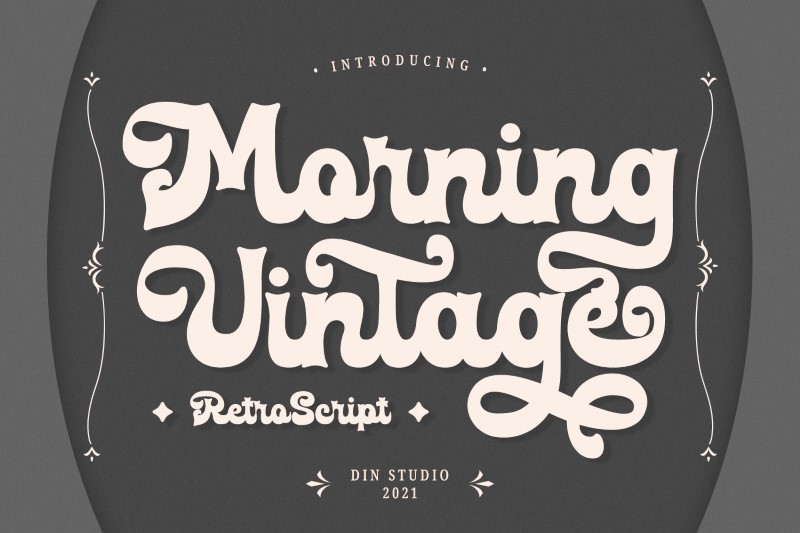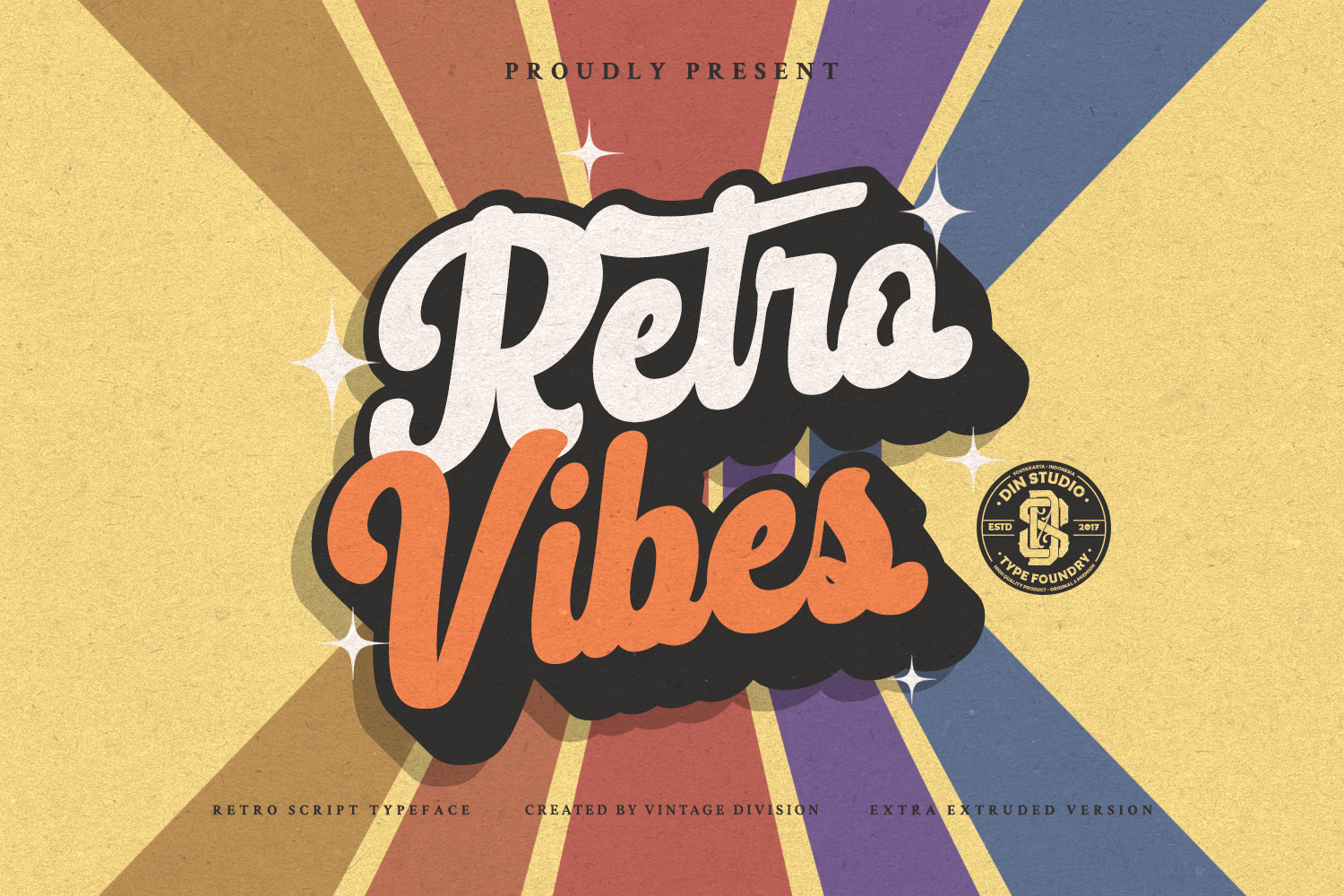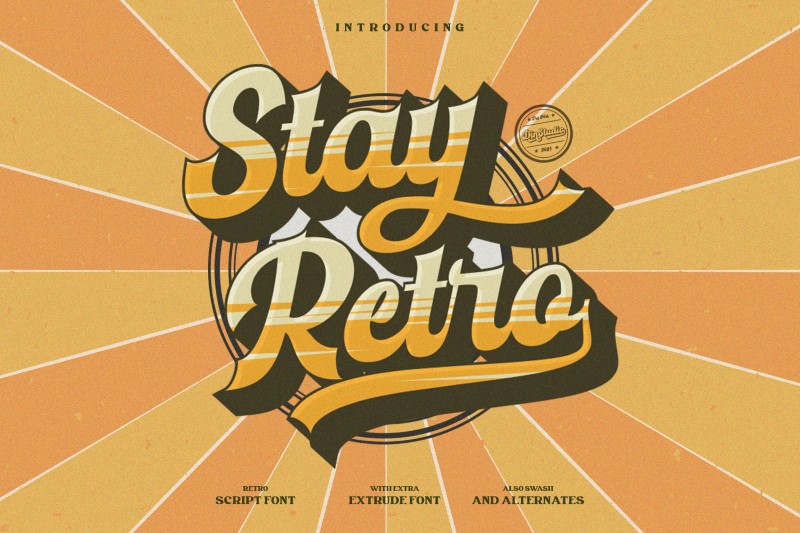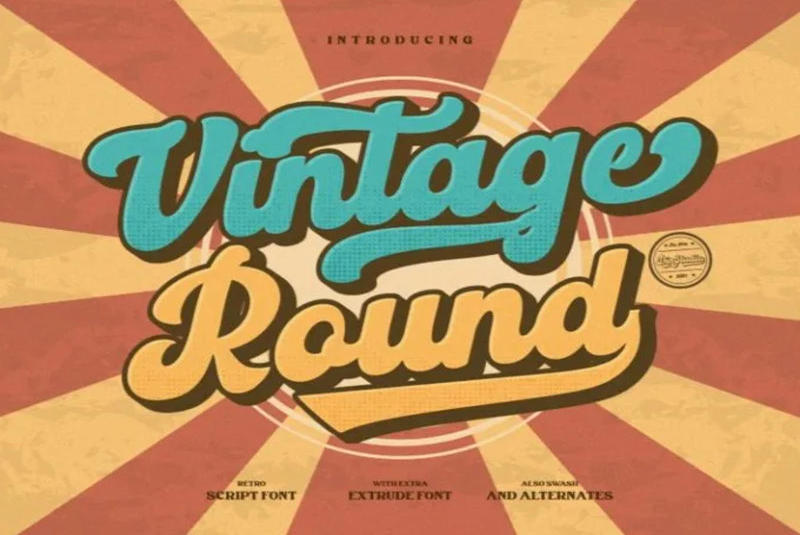
Are you ready to create something that exudes personality, elegance, and enduring style? Let’s evoke a powerful sense of nostalgia with the best vintage retro font collection available in the market.
In a time when minimalist, modern design rules the highest, the allure of classic style continues to captivate hearts. Opting for a vintage retro font remains a compelling choice, as it infuses a design with distinctiveness, authenticity, and character. Featuring bold letters, decorative ornaments, and a stylish handwriting flair, these fonts are perfect for elevating your project designs.
A vintage retro font shows a great look and builds a unique and memorable design identity. Additionally, vintage retro fonts have a nostalgic and adaptable style, ideal for many projects with an elegant and playful look. It is no wonder that these fonts always become the favorite in this creative era.
So, if you are looking for easily adaptable vintage fonts, you are definitely in the right place! In this article, we introduce the 10 best vintage retro font collections to enhance your design. From classic to playful looks, we’ve got everything. Let’s get to know them!
A vintage retro font is a type of font that adopts a design element from the bygone era, especially from the 19th to the mid-20th century. This font is well-known for its bold letters, artistic ornaments, and distinctive curves that give a classic and nostalgic feel to a design.
Furthermore, with details like their curvy lines and shadow and texture effects, these fonts highlight certain distinctive visual characters that set them apart from modern minimalist fonts.
Vintage retro fonts began to gain popularity in the 19th century, alongside the development of print media and advertising during the industrial revolution. The bold and decorative font styles of that time were heavily influenced by the organic and flowing aesthetics of Art Nouveau, as well as the later Art Deco with its geometric and elegant forms. Posters, product packaging, and billboards frequently used these fonts to draw attention.
Over time, this trend waned with the emergence of minimalist modern design in the 20th century. However, since the early 2010s, interest in nostalgia and retro aesthetics has revived the popularity of this classic font. Now, in the digital era, this font is increasingly favored as a way to add an authentic and timeless touch to designs.
Vintage retro fonts are very suitable for designs that want to appear classic but have an authentic and characterful atmosphere. This font provides a strong touch of nostalgia, allowing the design to indirectly tell a story. Additionally, the decorative and distinctive letterforms help differentiate your design from the modern style, which tends to be uniform and minimalist.
This uniqueness is very effective in strengthening visual identity, attracting audience attention, and creating a quite profound impression. Therefore, vintage retro fonts have become the primary choice for designers and brands that want to stand out and appear classic.
In the world of design, the right choice of font can enhance the character and atmosphere of a work. A vintage retro font offers a classic charm and strong nostalgic feel, ideal for many creative projects of yours. The following are 10 must-have vintage retro fonts for you.
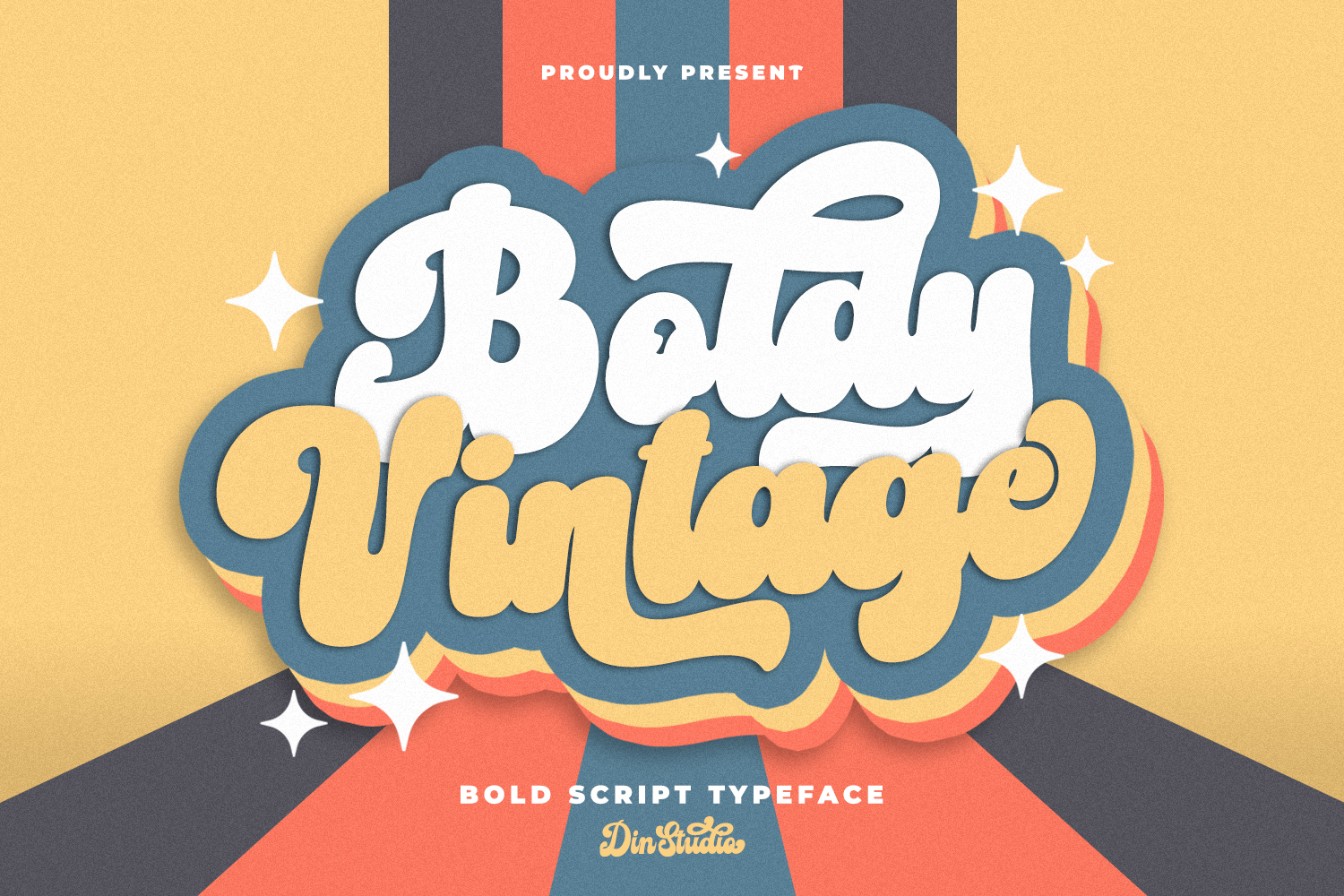
Firstly, we have Boldy Vintage. Boldy Vintage is one of the best vintage retro fonts for those who want to showcase a design that is strong, bold, and full of character. Every hand stroke on its letters makes the design look bright and lively, adding a modern yet enjoyable touch.
The main features of Boldy Vintage include ligatures, which are special letter combinations that make the writing more attractive and natural. Additionally, this font offers a variety of cool and diverse styles to provide flexibility in your designs.
This font is perfect for creating quotes, logos, menus, and social media content that aim to stand out and be full of energy. The multilingual support it offers also makes it easy for you to reach a global audience with designs that remain consistent and appealing.
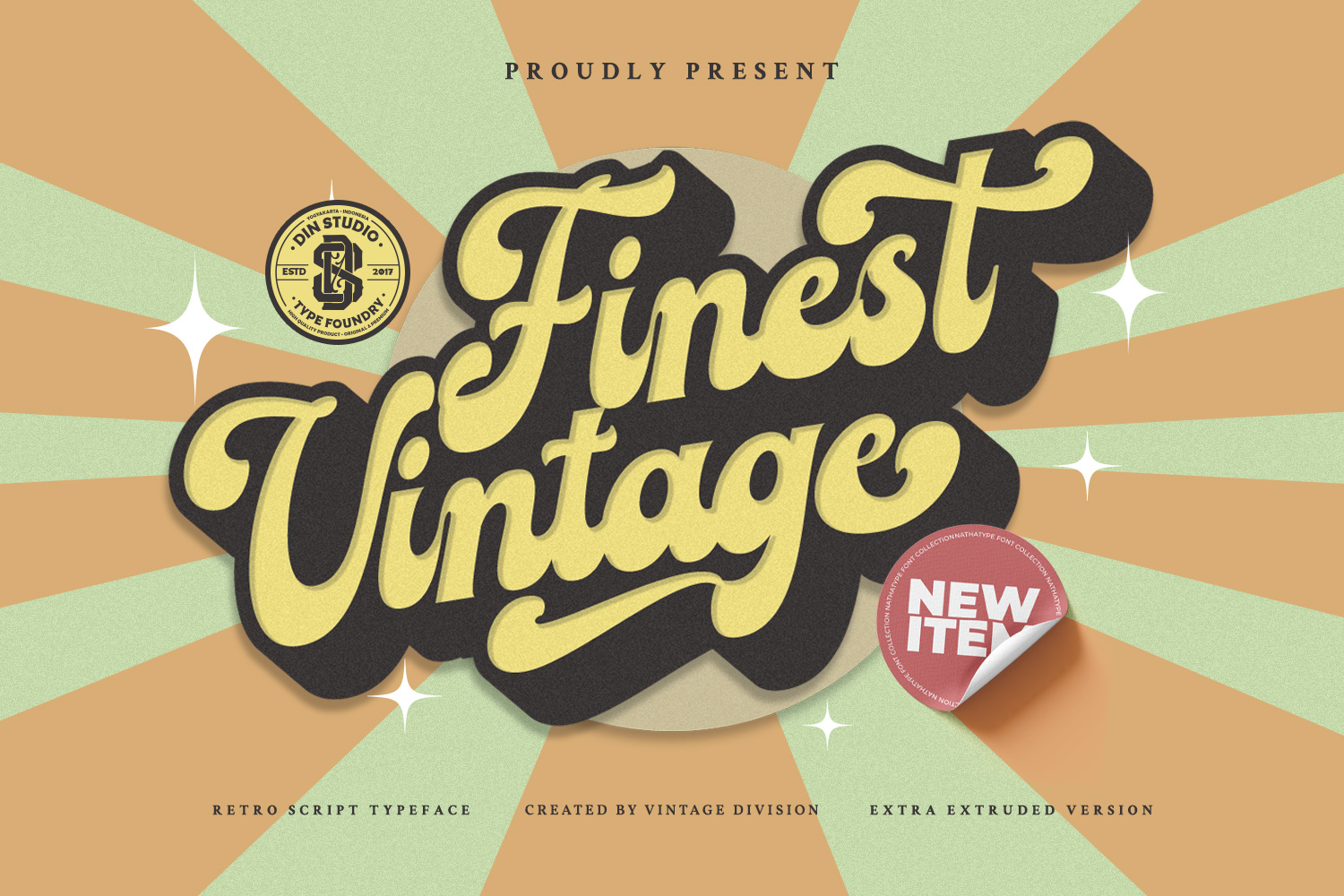
Next, you need to know about Finest Vintage. It is a vintage retro font combining classic elegance with smooth and precisely detailed typography. Finest Vintage is characterized by its distinctive bubbly style, sharp lines, and bold letter strokes. The angular letter design makes it easy to read and attention-grabbing. Equipped with multilingual glyphs, Finest Vintage also offers an extrusion version that adds a unique touch.
The main feature of Finest Vintage includes ligatures, alternate sets, and swashes, enhancing the look of your design project. As a result, this font is ideal for creating quotations, logos, menus, and social media graphics.
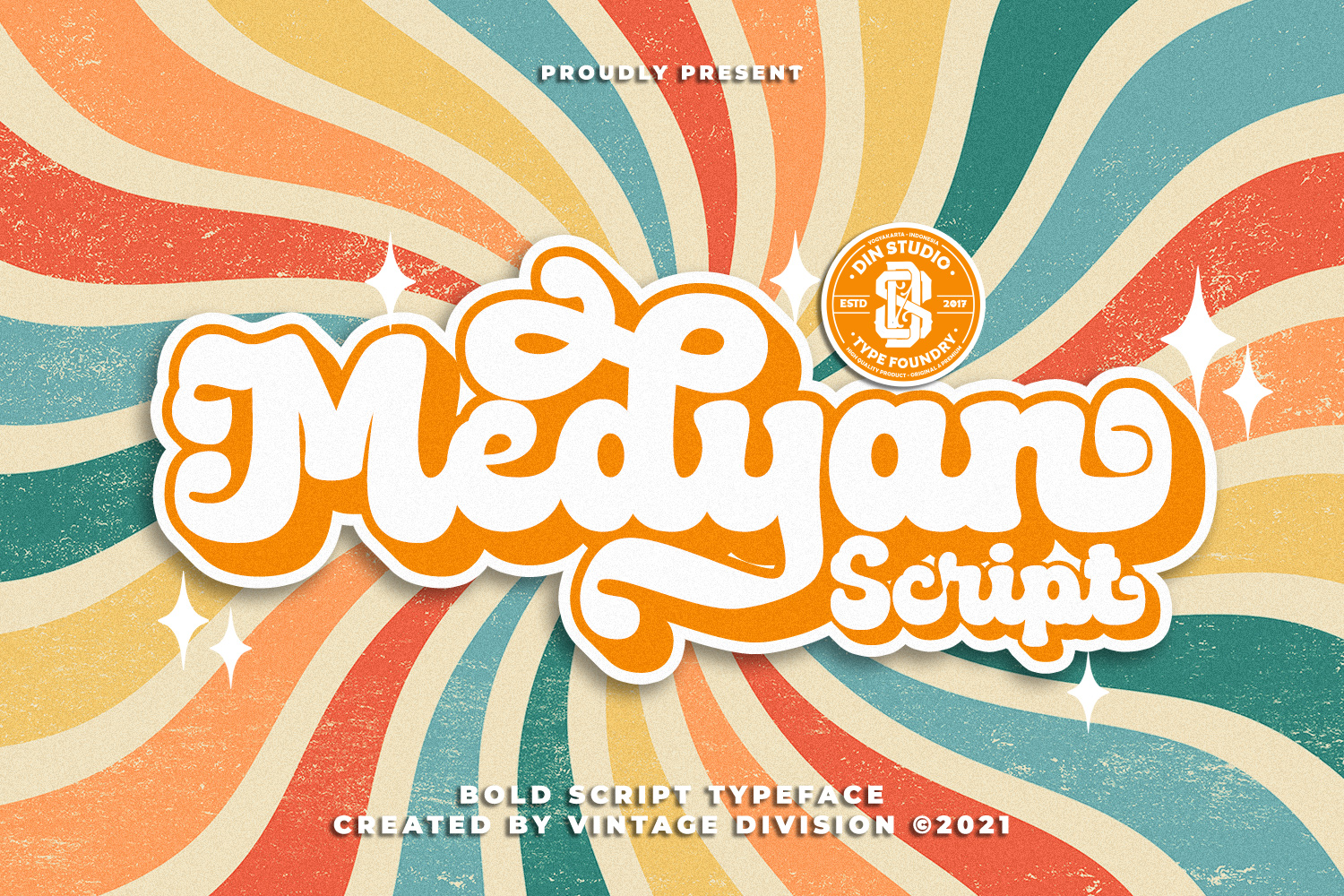
In the era of minimalist design, vintage retro fonts provide a different, captivating, and unforgettable vibe. So, this is the perfect time to adopt this classic style in your work.